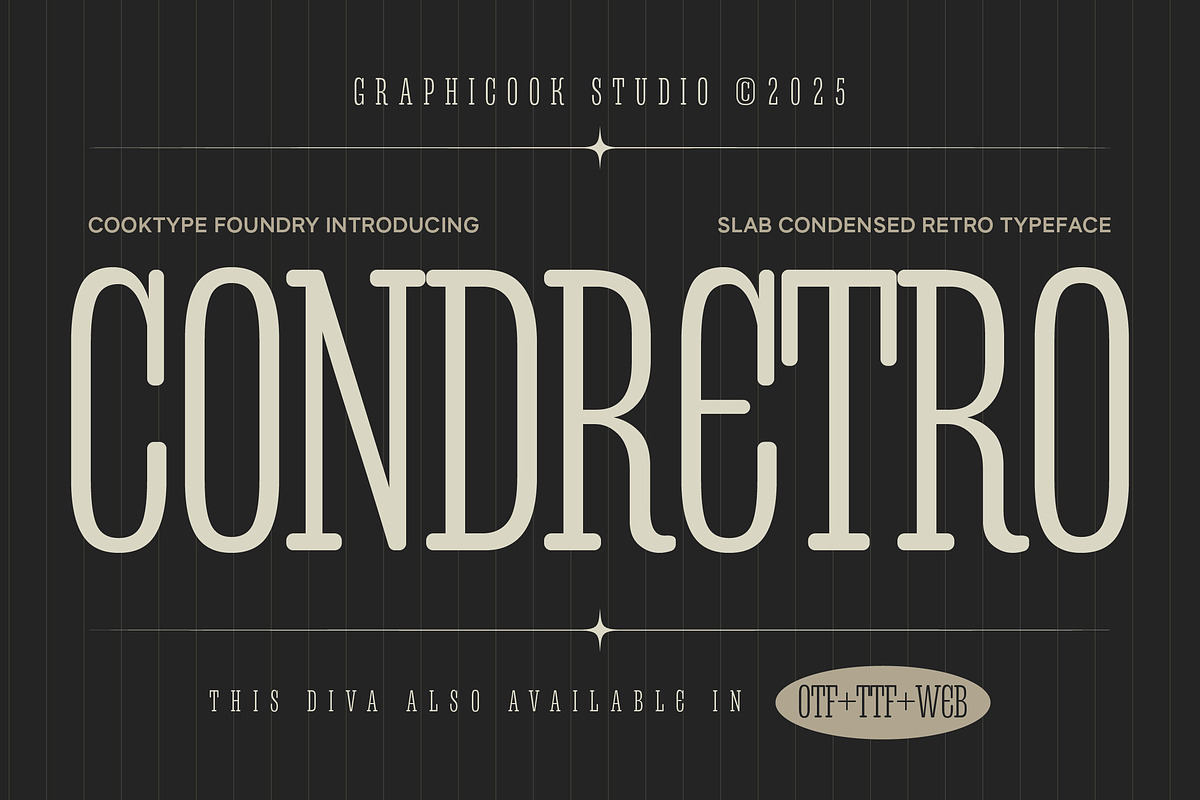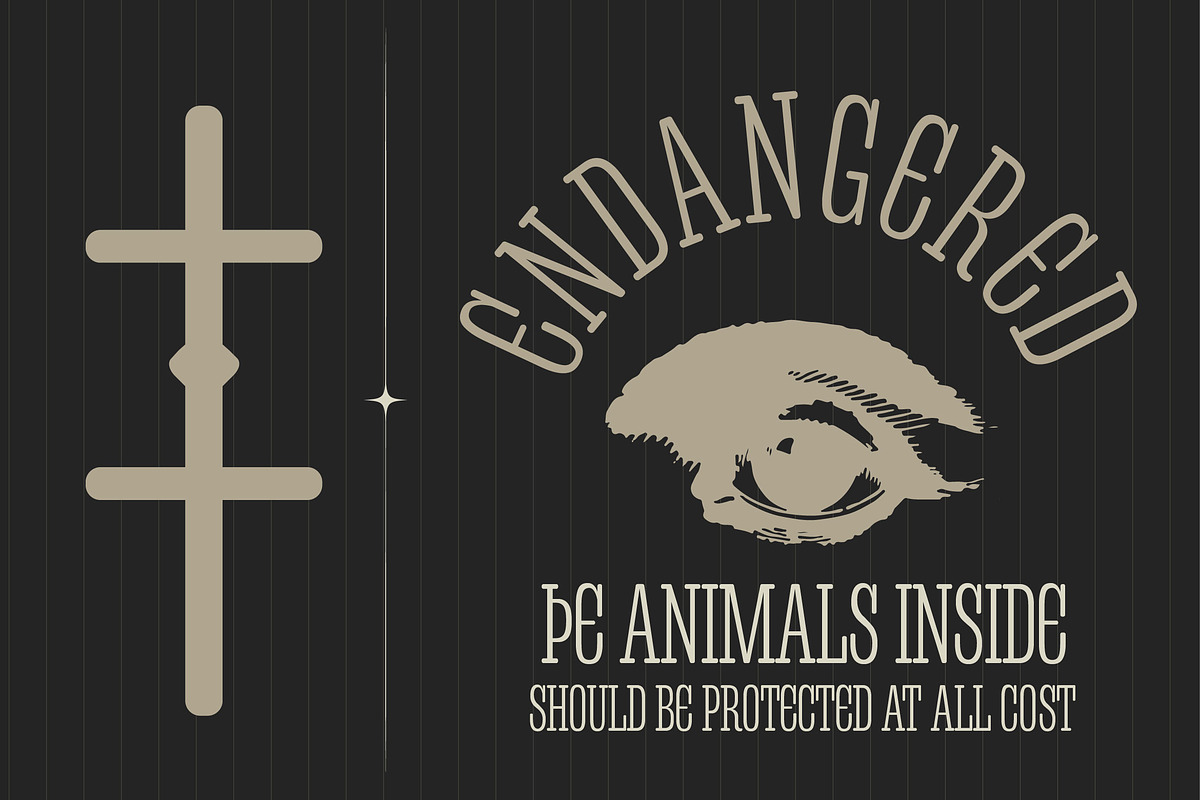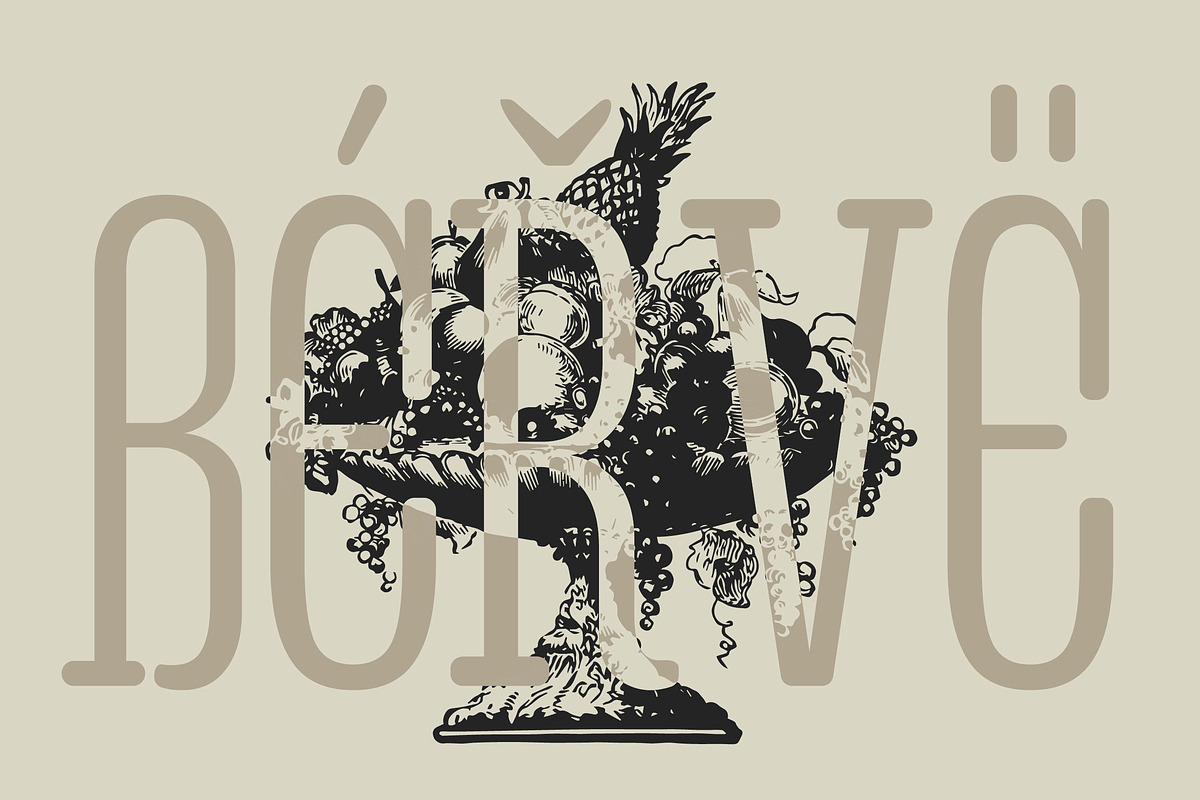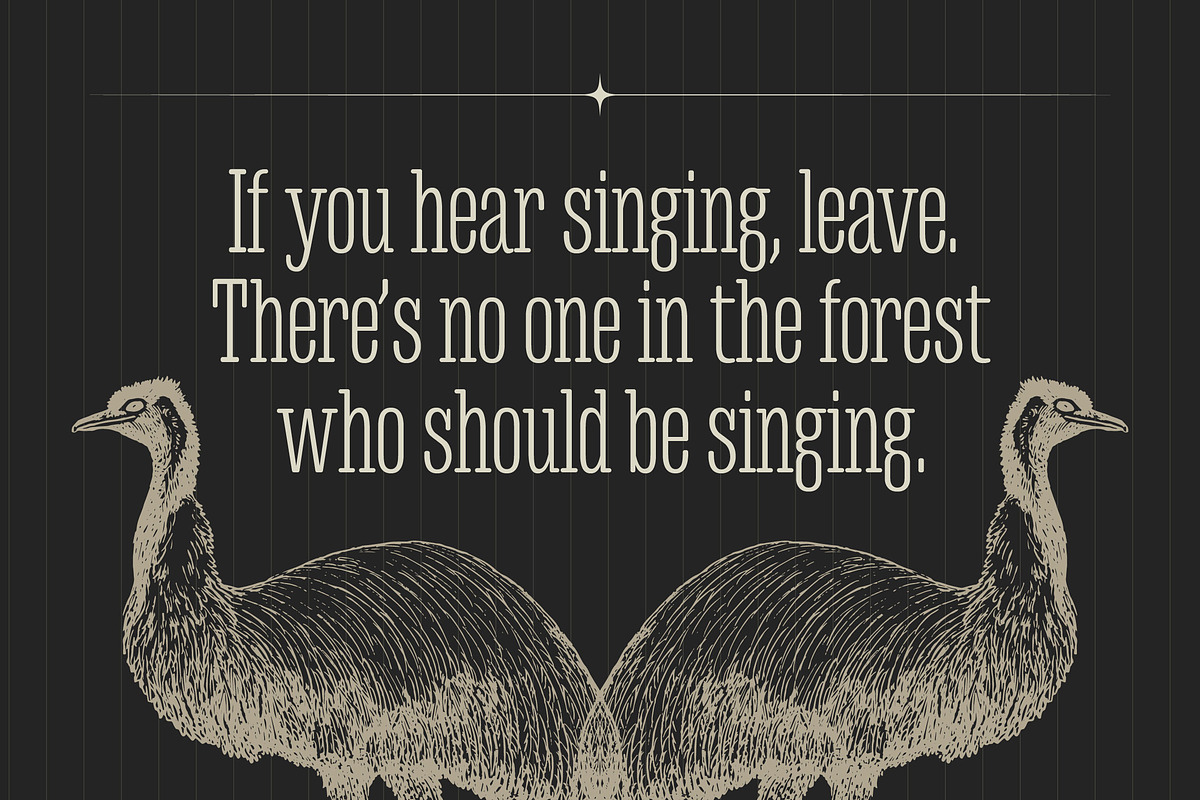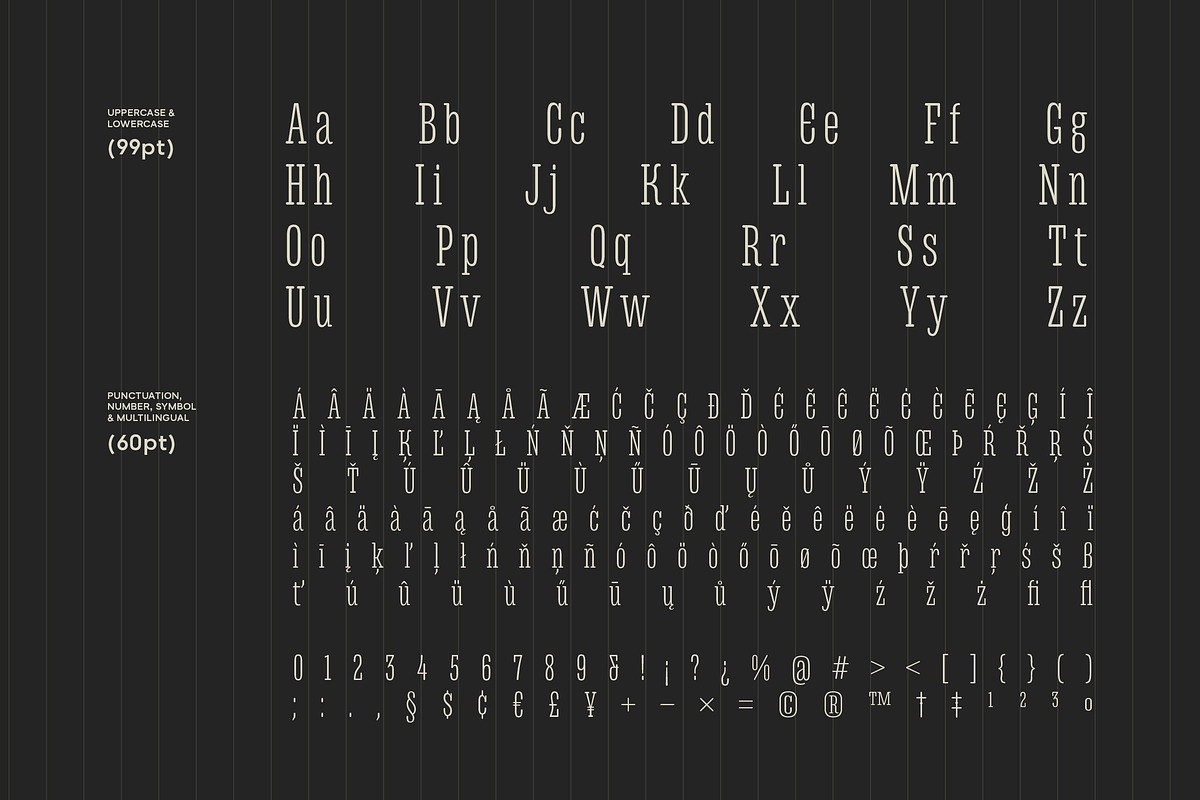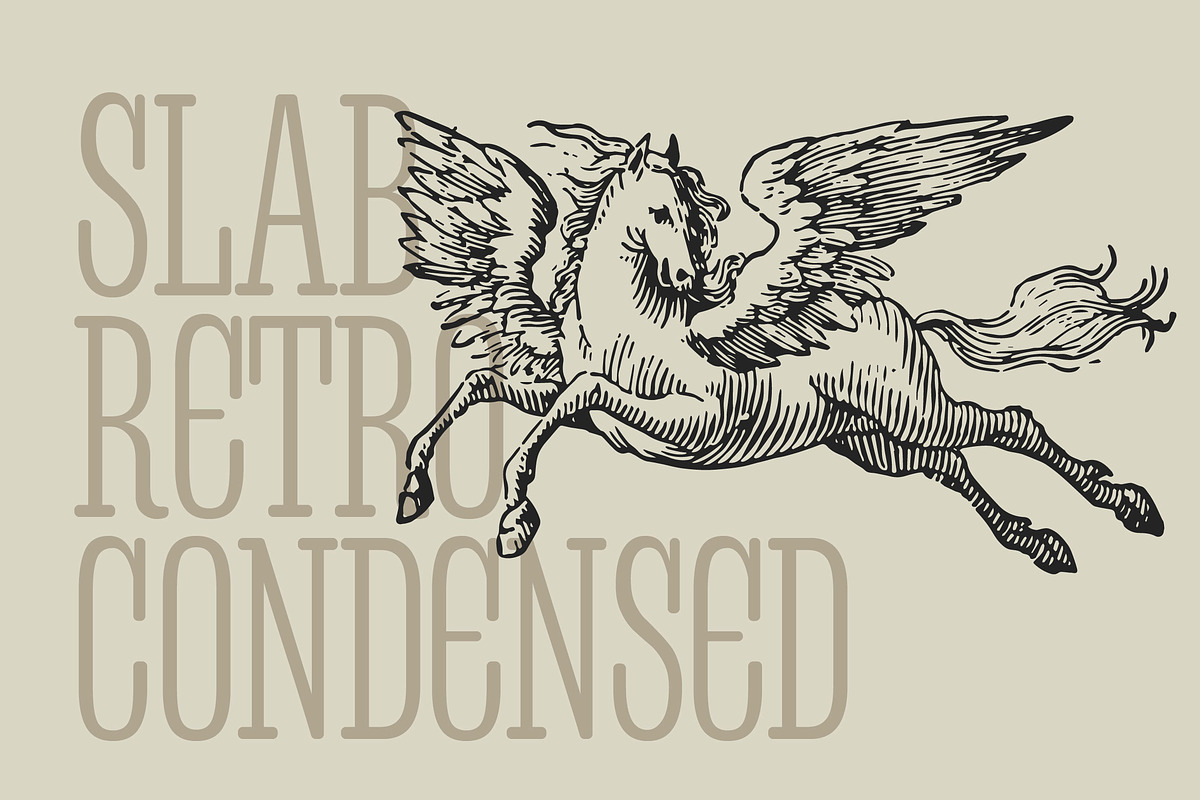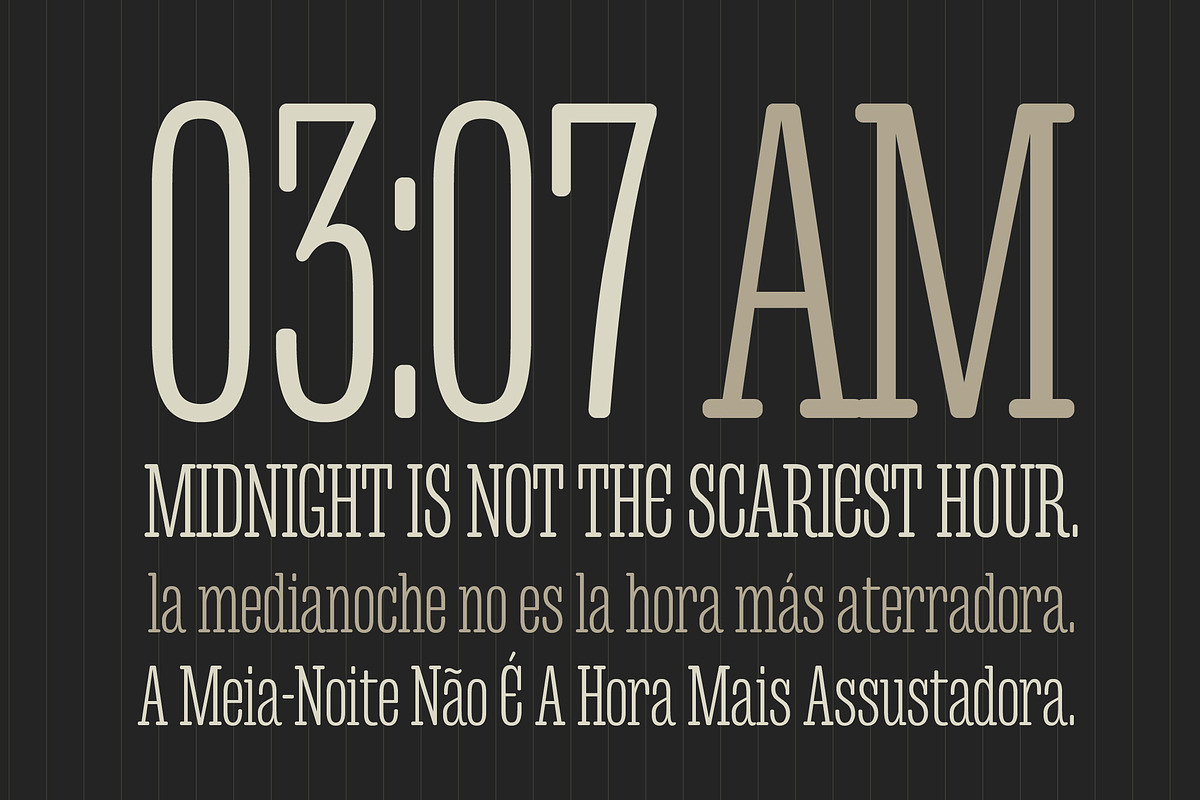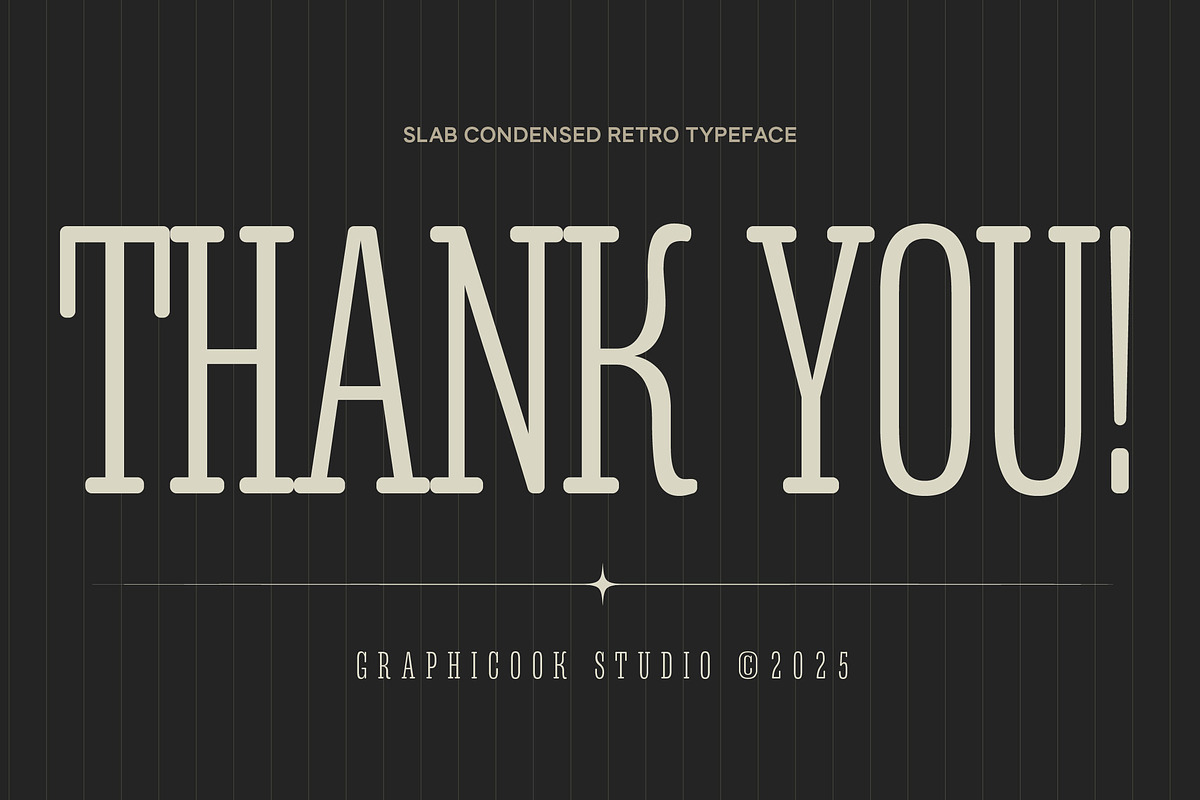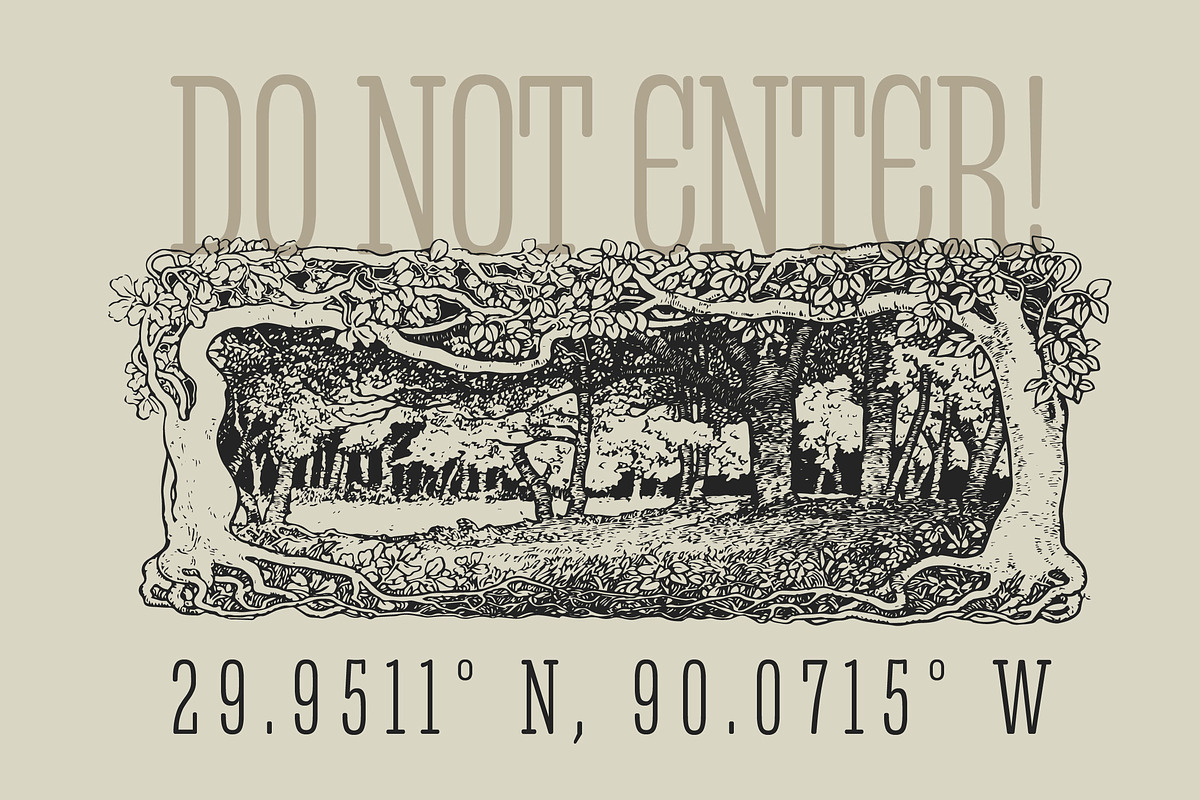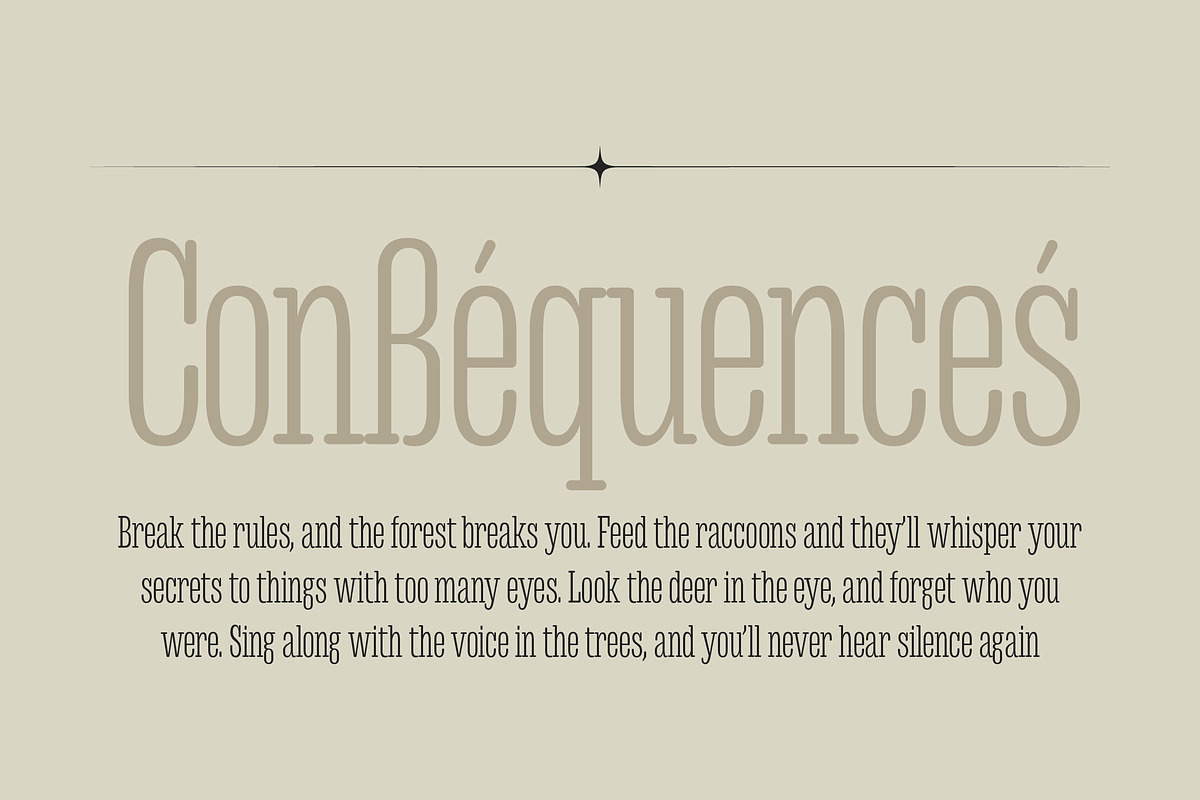
Condretro
Condretro is a condensed slab serif font featuring rounded letterforms. With its classic and timeless appeal, it’s suitable for a wide range of design projects.
Condretro is perfect for headlines, logotypes, magazines, packaging, quotes, movies, games, cover albums, book covers, and flyers, it's a perfect solution for creating eye-catching designs that stand out in any context.